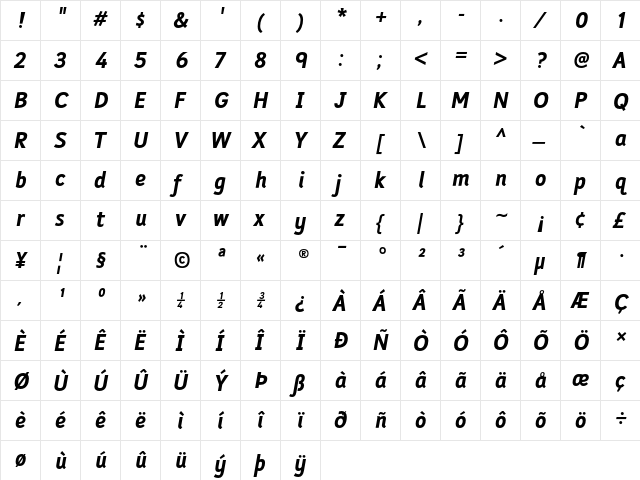
Folder Bold Italic
Design Context for Folder Typeface
Folder is a composed and adaptable typeface that performs quietly and consistently across a wide range of design contexts. Its italic angle brings a sense of urgency and motion to the letterforms. The heavy weight commands attention and anchors typographic hierarchies.
Pro Tip: Use Folder for emphasis, pull quotes, and subheadings where its slanted energy can add rhythm to the layout.